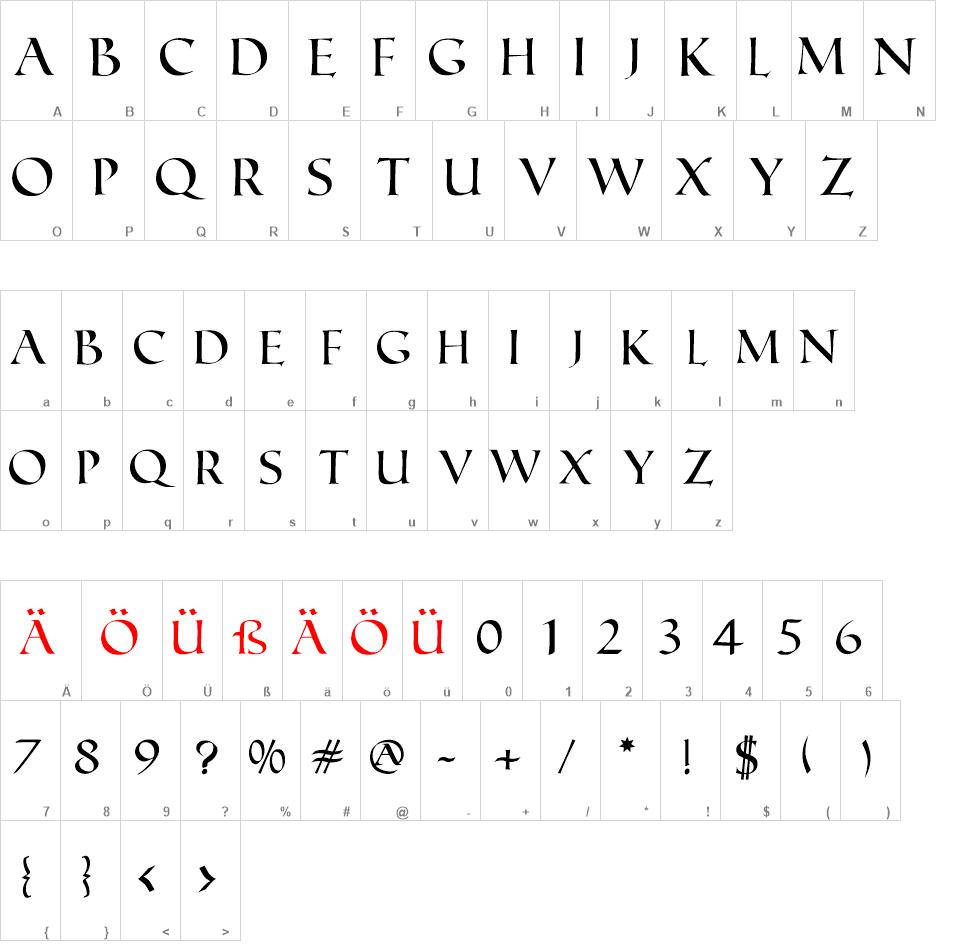
Roman SD
Roman SD font
Based on the lettering on Trajan's Column in Rome but with a little more of a calligraphic feel, rather than a carved in stone look.